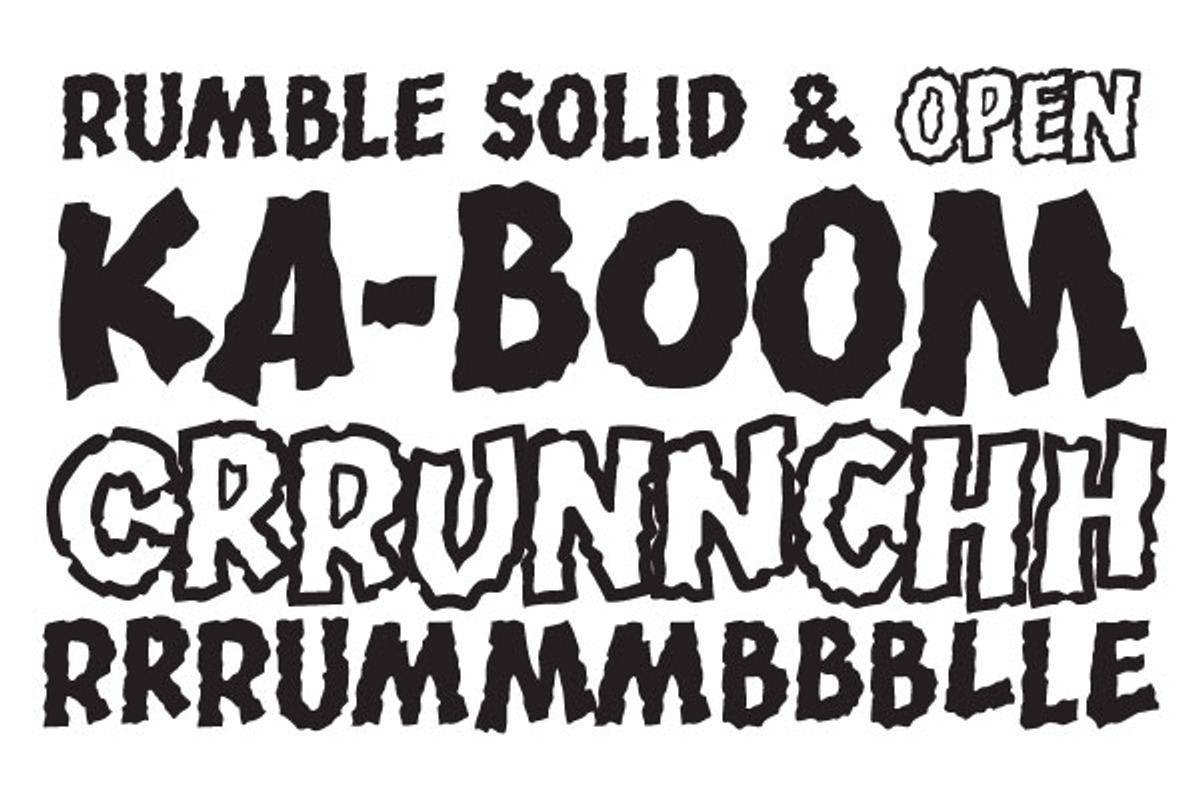
Rumble - a rough crunchy comic font
Rumble - a rough crunchy comic font by Comicraft Fonts is a font selected for branding, posters, packaging, typography.
- Hold on to your Hats and Stand in a convenient Door Frame, and be warned that anything you have on your desktop that is not nailed down is g
Why Rumble - a rough crunchy comic font is worth a look
Rumble - a rough crunchy comic font by Comicraft Fonts fits naturally into Branding, posters, packaging, typography.